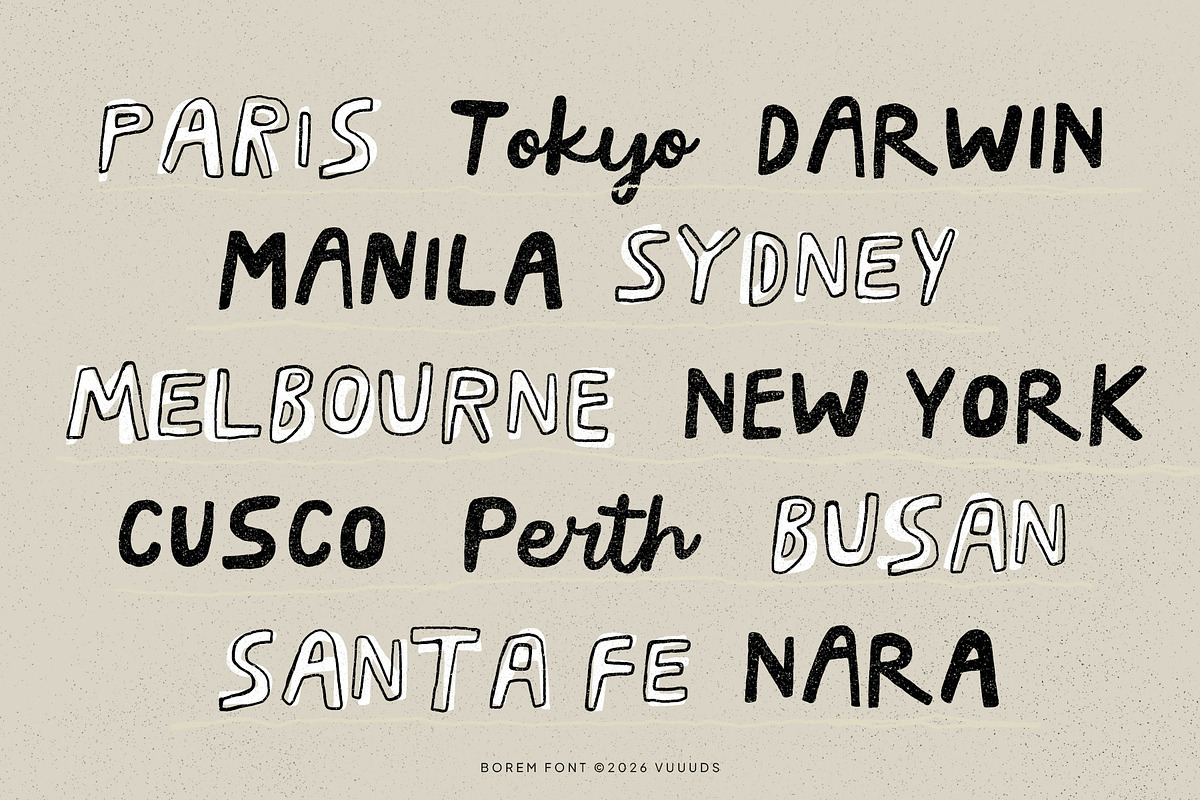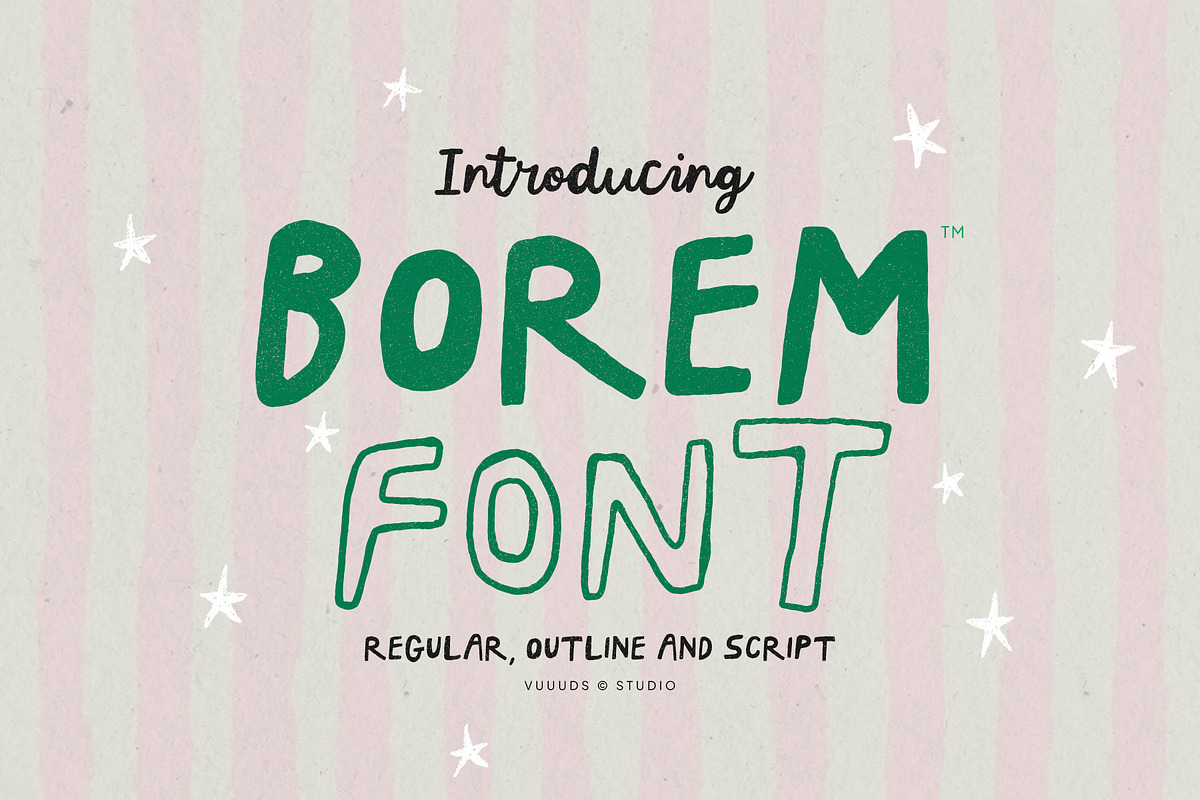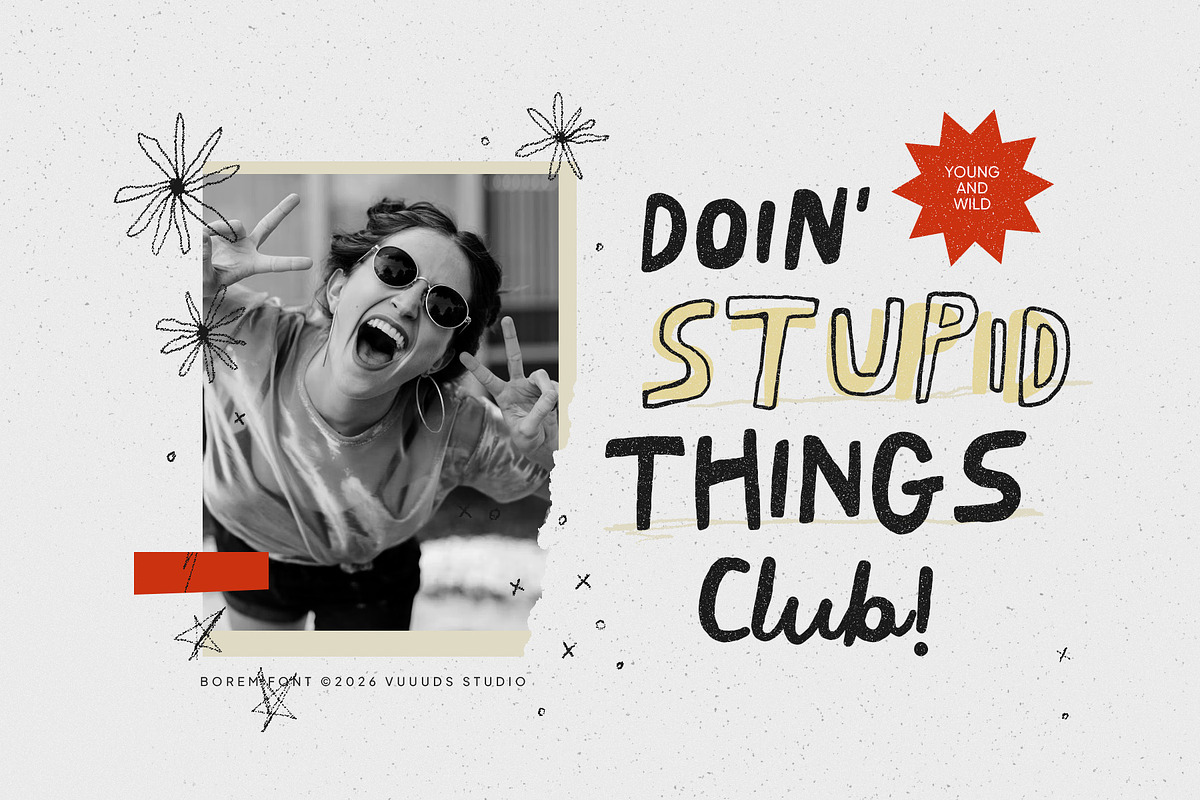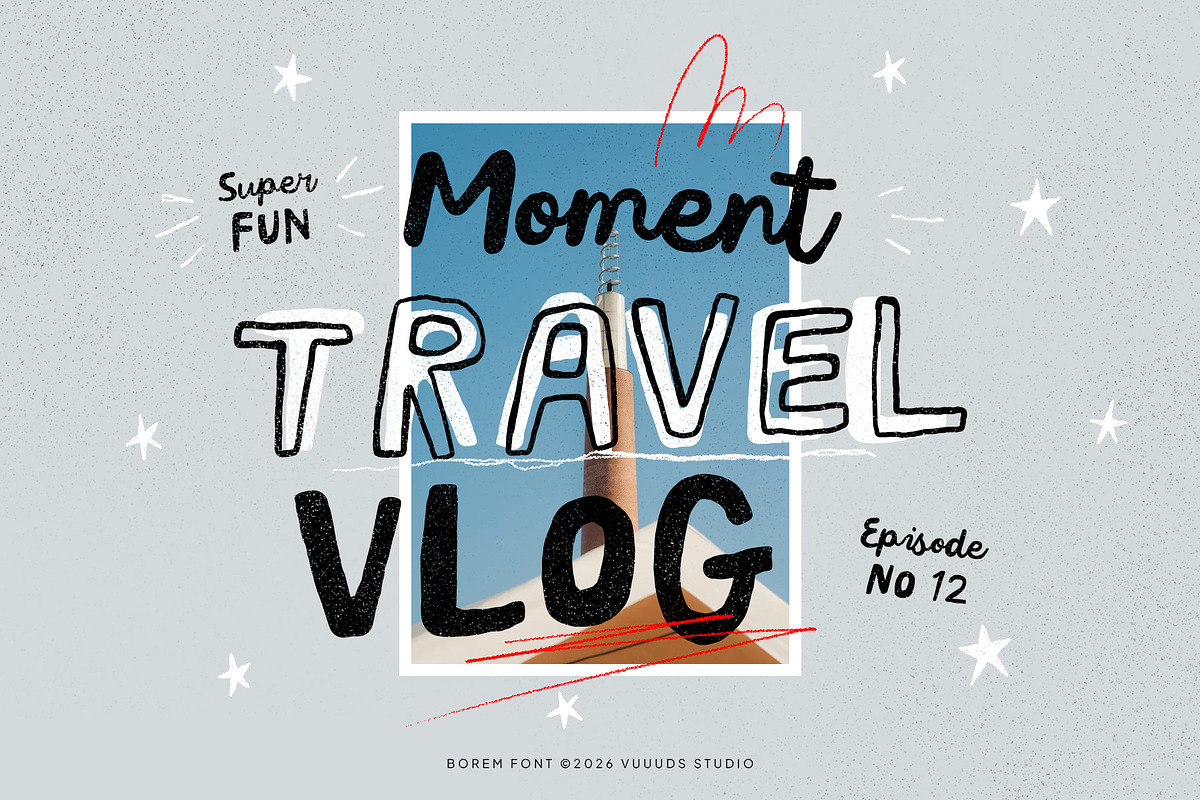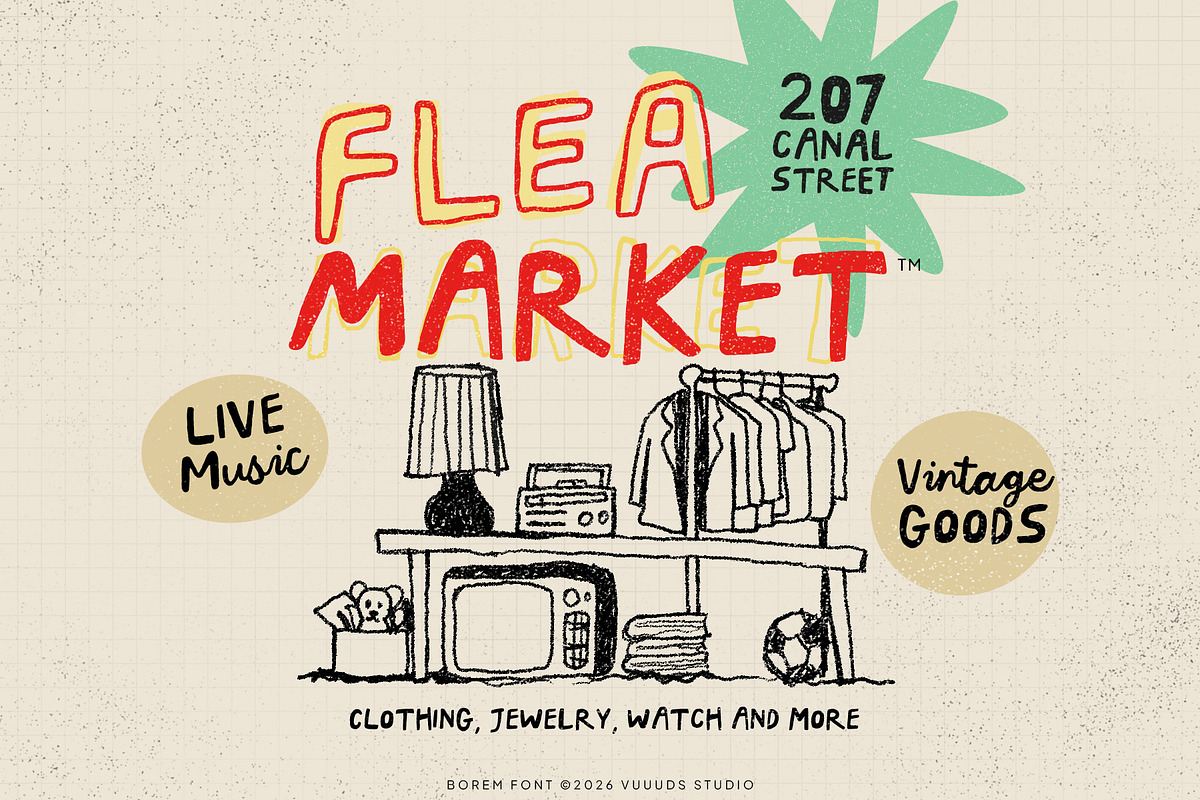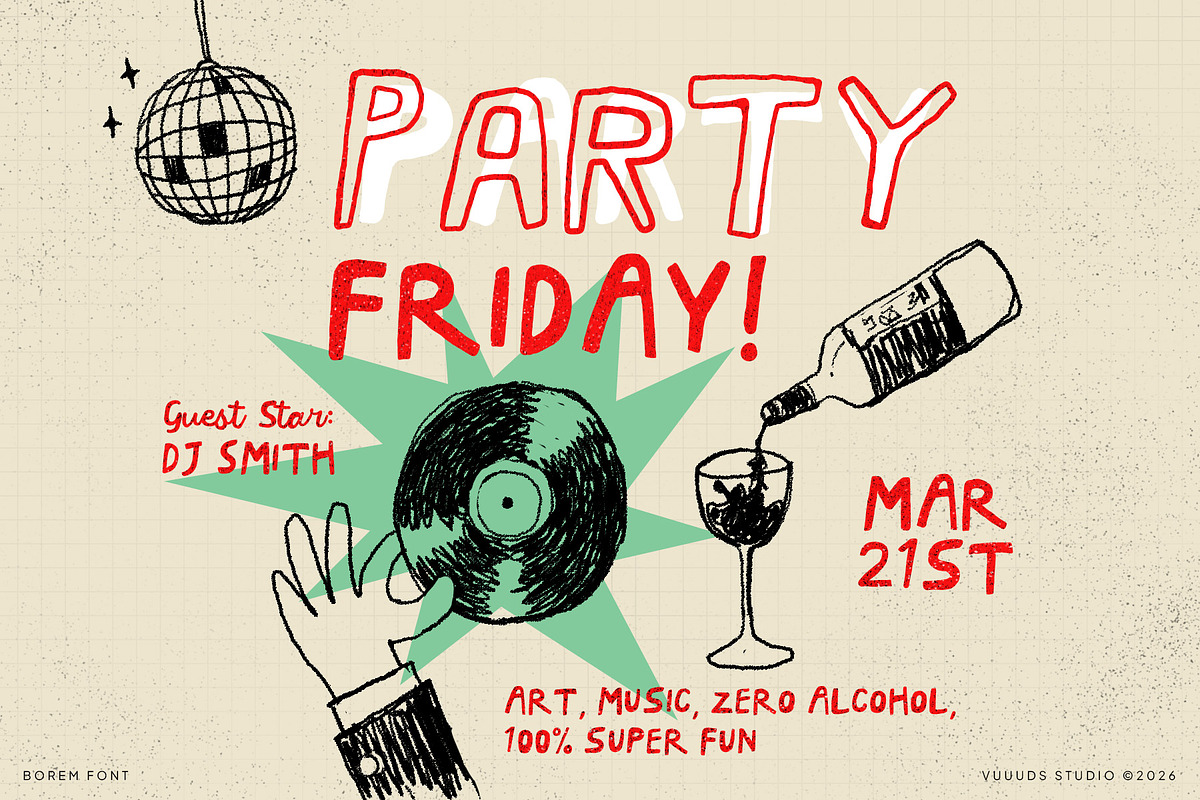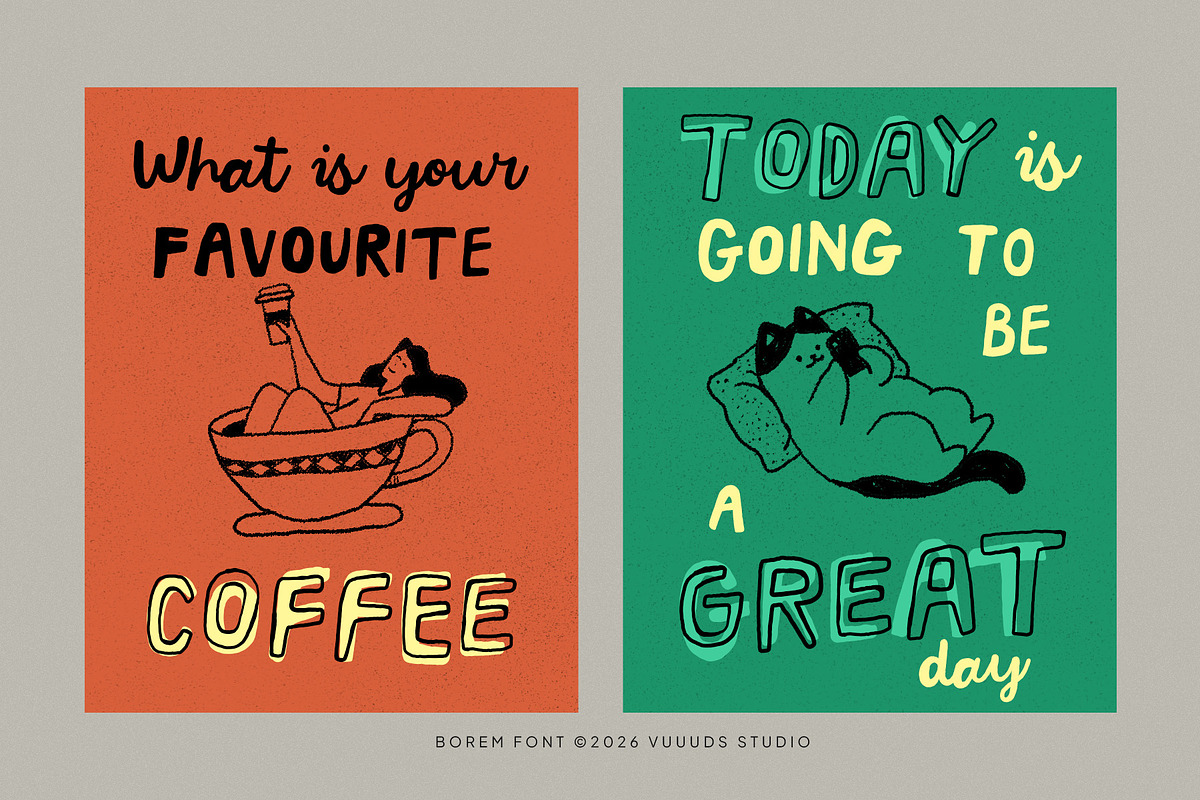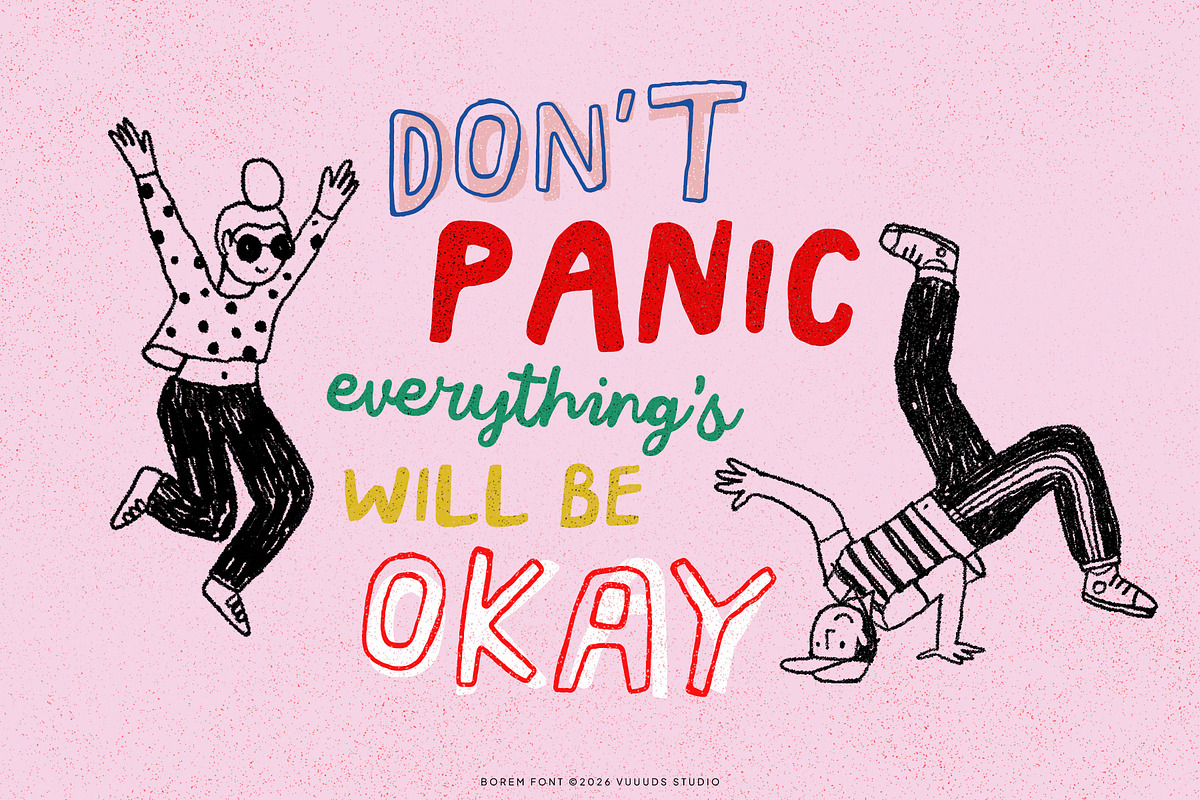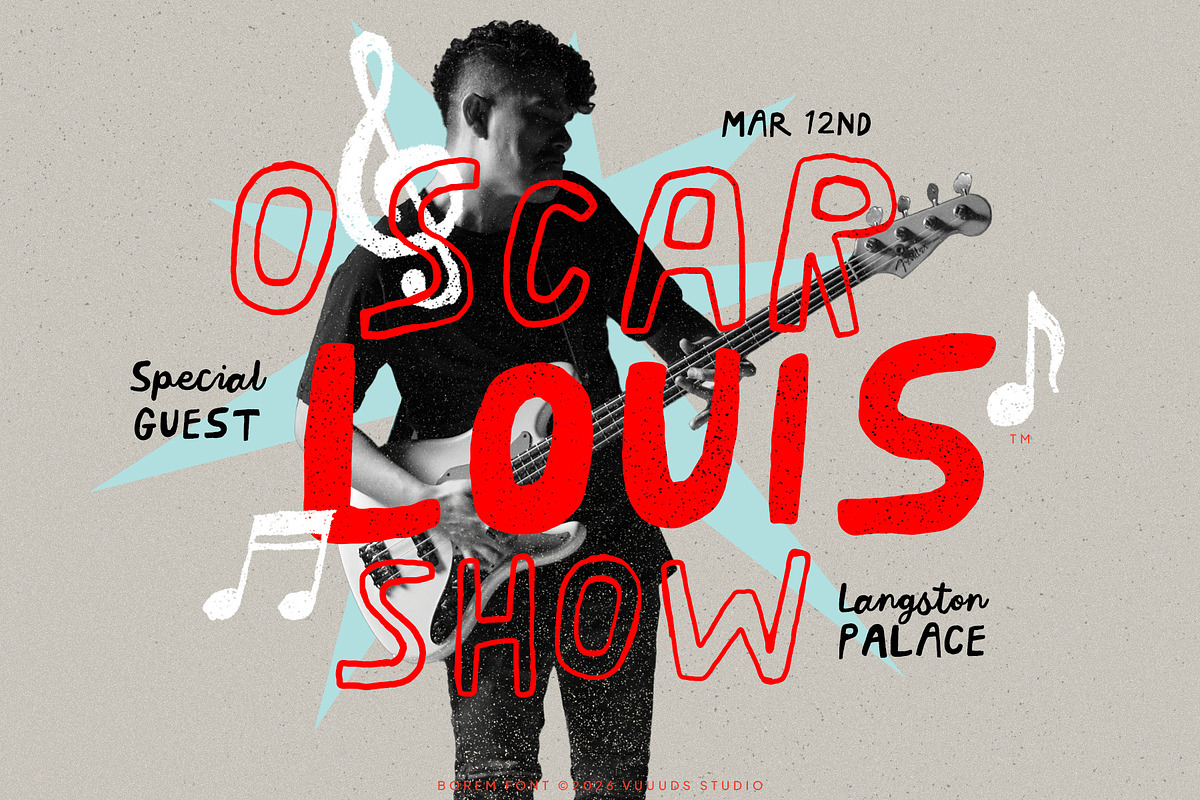
Borem - Handmade Trio Fonts
Borem is a charming and versatile handwritten font family featuring three distinct styles—Regular, Outline, and Script—designed to bring an authentic, artisanal warmth to any project. Its friendly and organic texture makes it the perfect choice for cozy cafe branding, expressive logos, handmade packaging, and creative poster designs. Whether layered together or used individually, Borem’s playful yet crafted aesthetic is exceptionally well-suited for greeting cards, children's book titles, merchandise, and social media content that needs a personal, human touch.